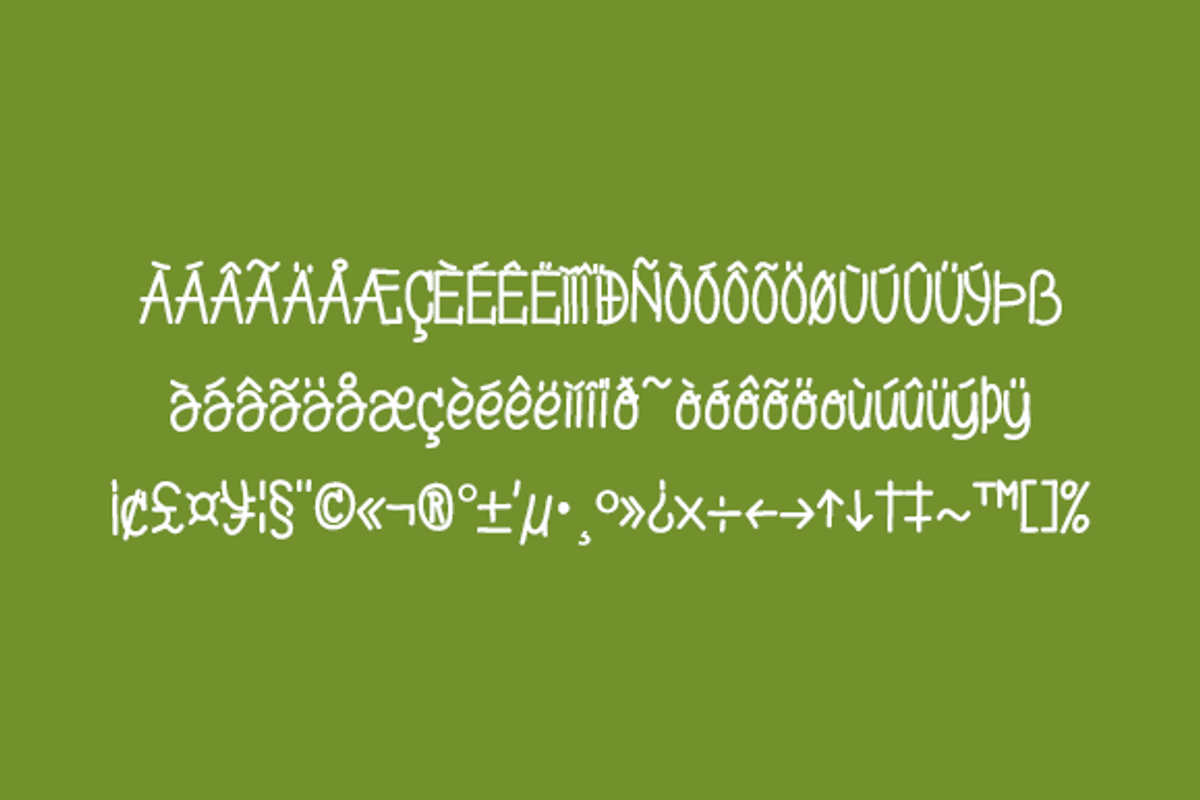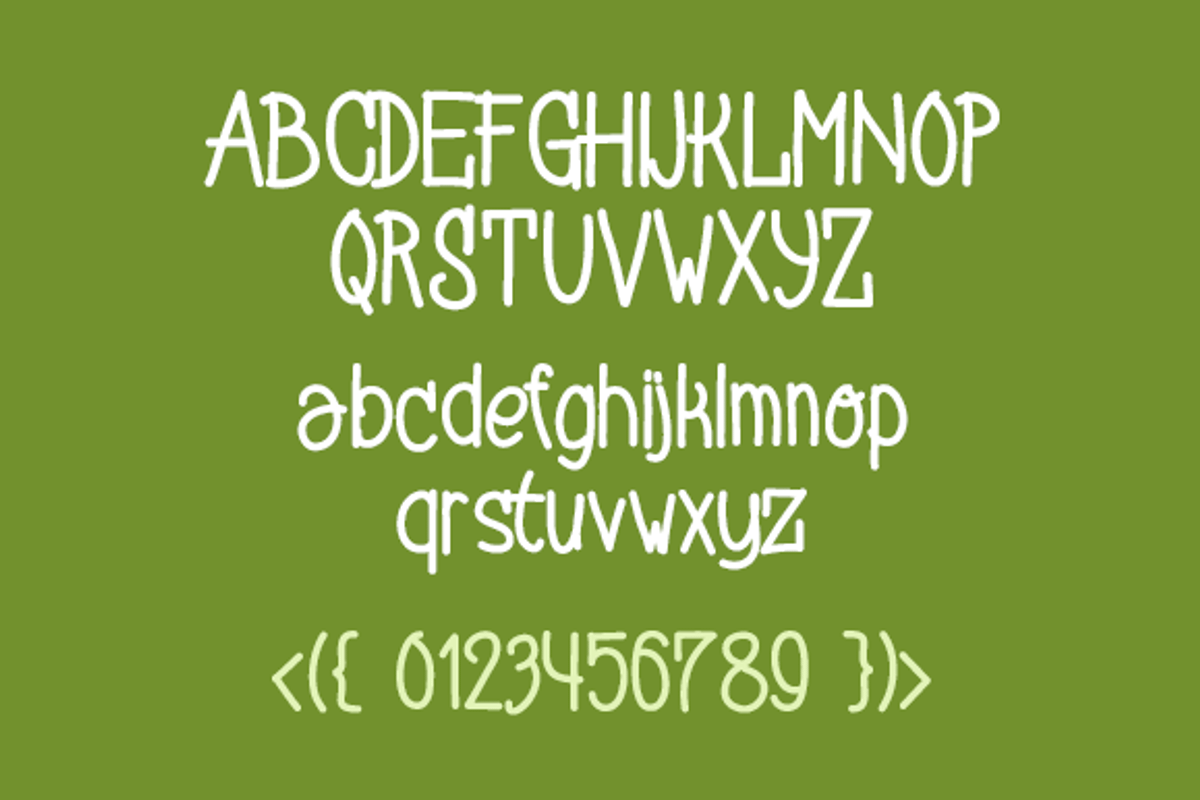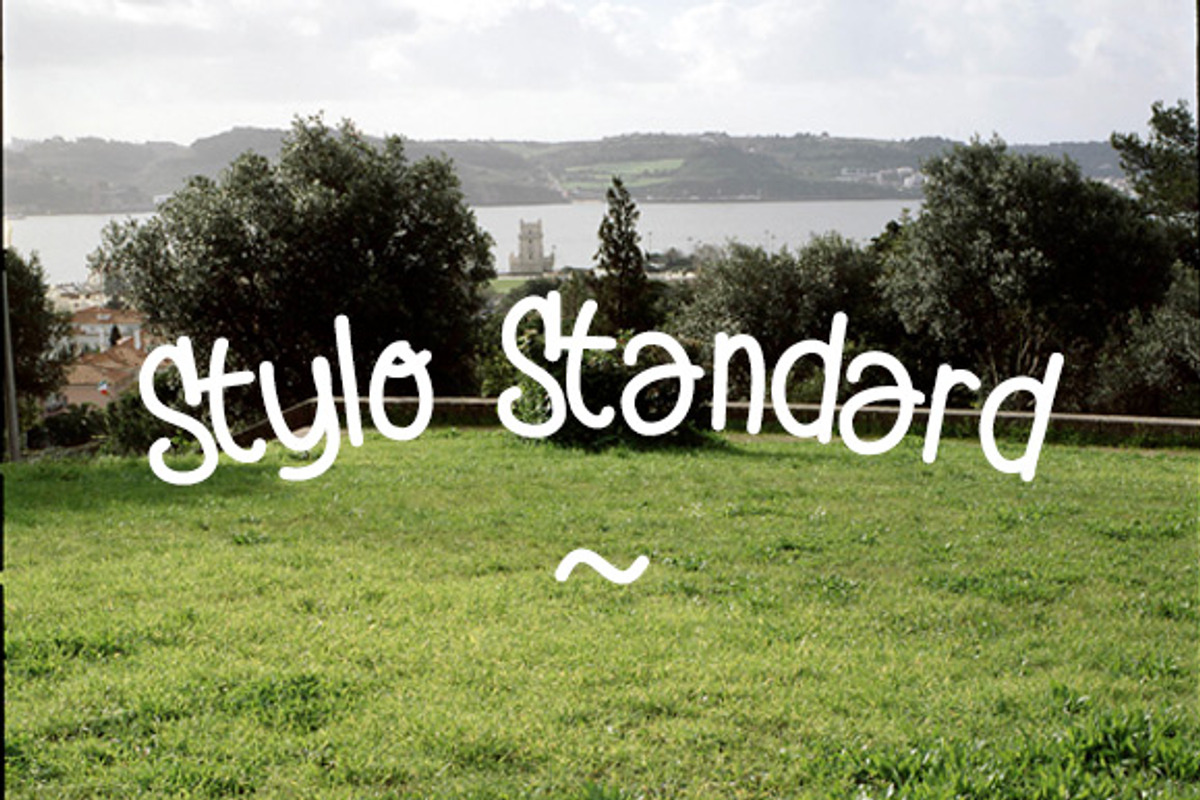
Stylo Standard - hand drawn font
Stylo Standard - hand drawn font by David is Creative is a font selected for branding, posters, packaging, typography.
Why Stylo Standard - hand drawn font is worth a look
Stylo Standard - hand drawn font by David is Creative fits naturally into Branding, posters, packaging, typography.